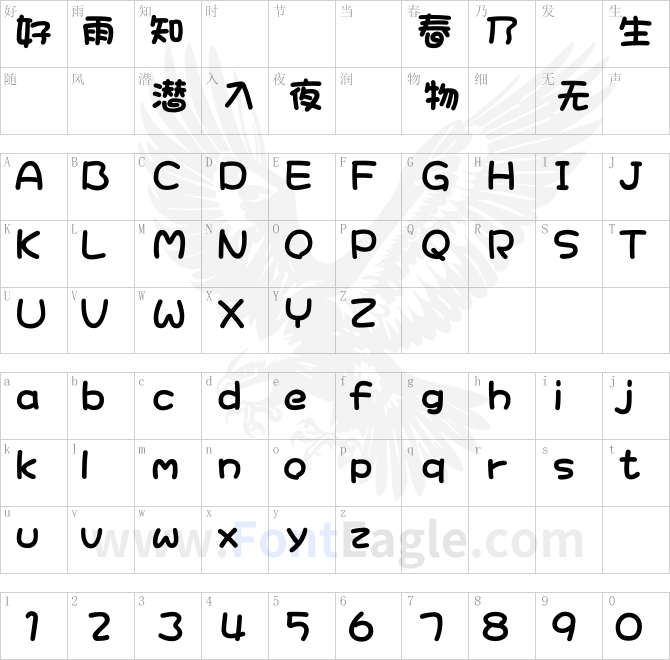
AR-PTianNiu-Heavy-B5 is a great font, widely used in graphic design, single-page menu design, poster design and other fields, and is deeply loved by designers.AR-PTianNiu-Heavy-B5 download.